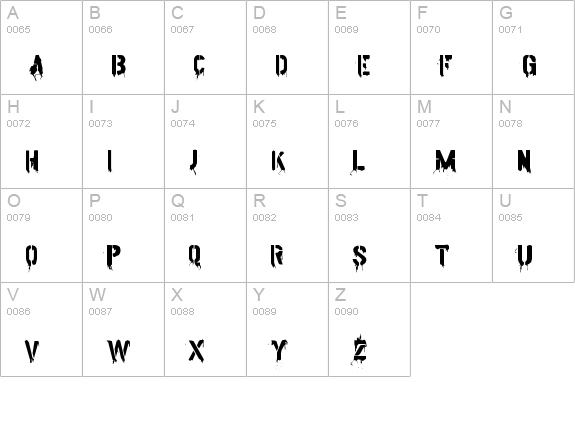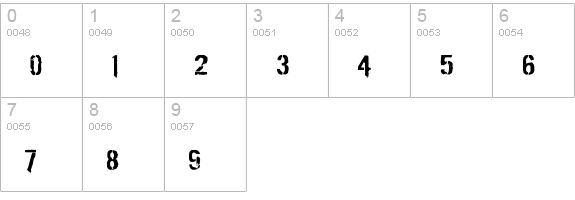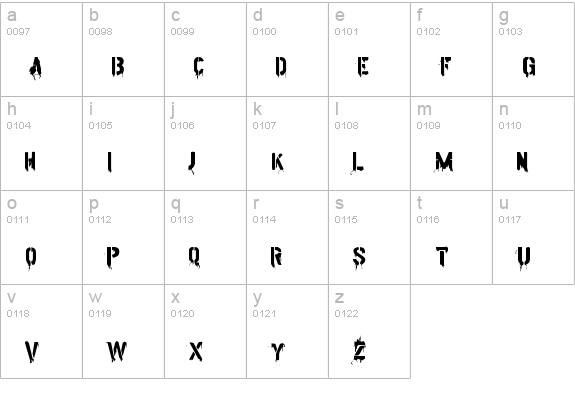
American Life Font Details
American Life font captures the essence of the American spirit with its bold and timeless design. This versatile typeface exudes confidence and strength, making it perfect for a wide range of projects. Whether you're creating posters, logos, or branding materials, American Life font will make a powerful statement. The best part? American Life font is available for free download at FontsMarket.com. Now you can add a touch of Americana to your designs without breaking the bank. Don't miss out on this opportunity to enhance your projects with this classic font that embodies the spirit of the USA. Download American Life font today and let your creativity soar!